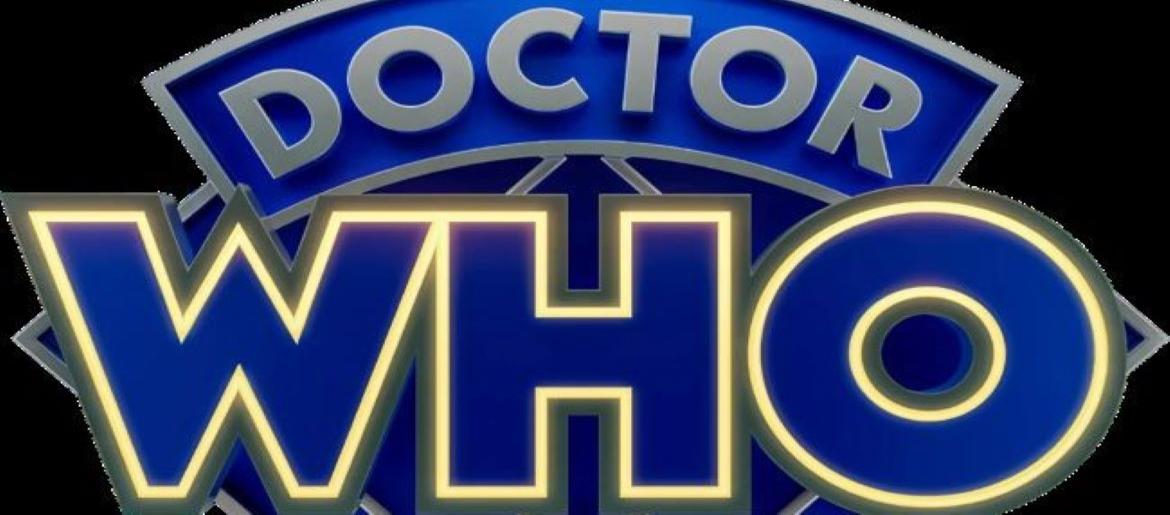
Doctor Who Font
The Doctor Who font captures the epic, time-bending spirit of the iconic British sci-fi series. Its sharp, modern style echoes the show’s blend of adventure, mystery, and futuristic storytelling. Whether you’re creating posters, themed graphics, fan art, or cosmic-inspired designs, this typeface adds an instant sense of excitement and intergalactic flair. Its bold, energetic look makes projects feel imaginative and full of motion—much like traveling through space and time itself.
About Doctor Who
Doctor Who is one of the longest-running and most influential science-fiction series in television history, debuting in 1963. The story follows the Doctor, a brilliant and mysterious Time Lord who travels the universe in the TARDIS—a spaceship disguised as a blue British police box. Throughout its many seasons, the show explores thrilling adventures across distant planets, alien civilizations, and pivotal moments in time. Each regeneration of the Doctor brings a fresh personality and new companions, keeping the series vibrant and evolving. Its imaginative storytelling, emotional depth, and inventive world-building have inspired generations of fans and solidified its place as a cultural landmark in sci-fi entertainment.